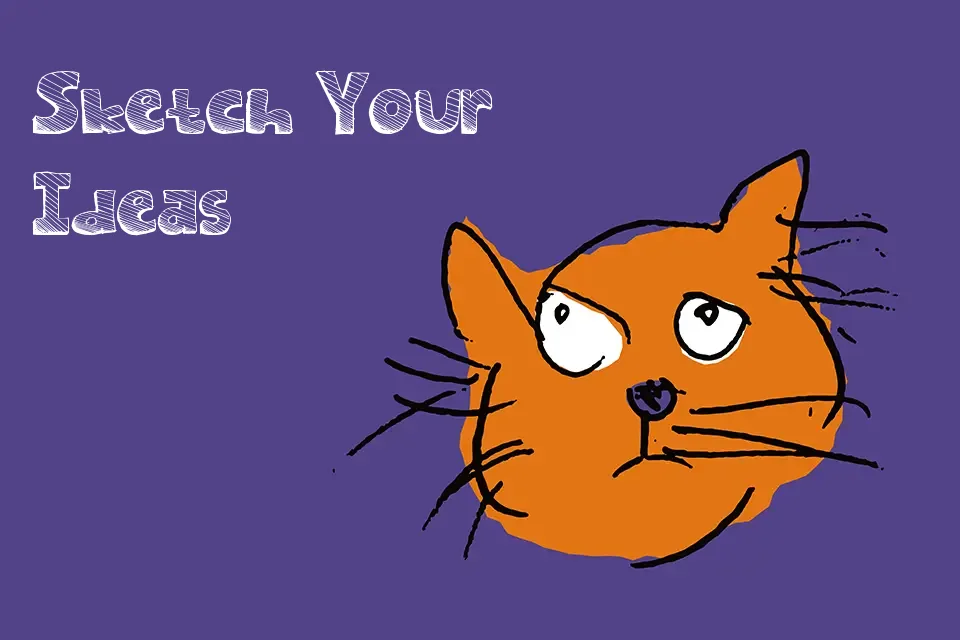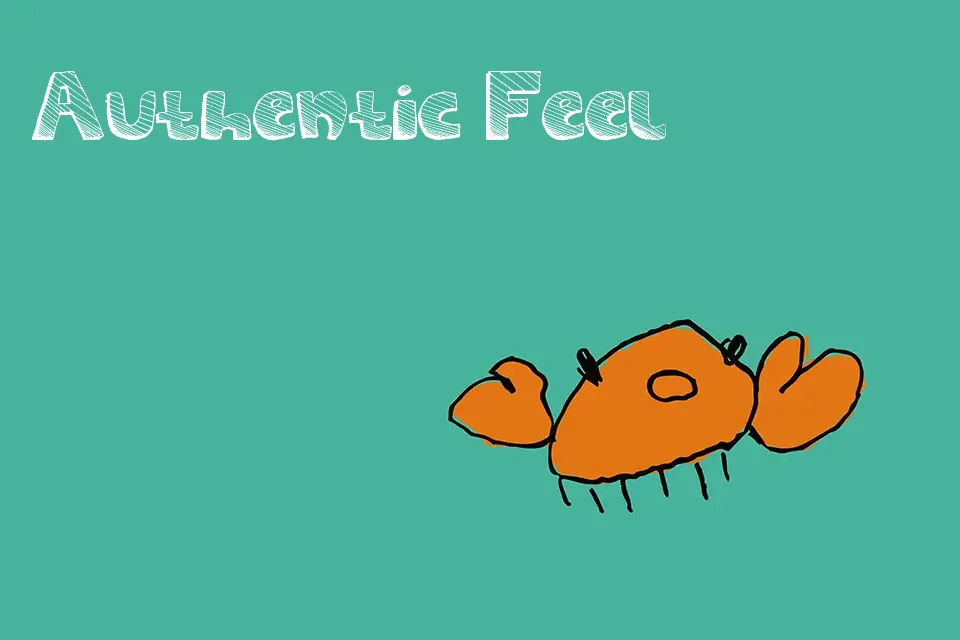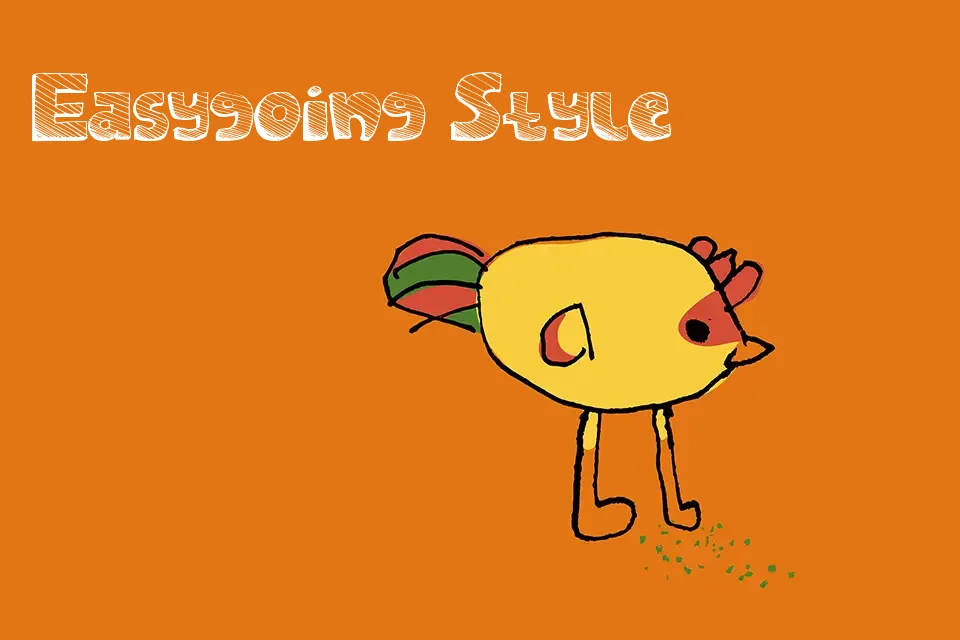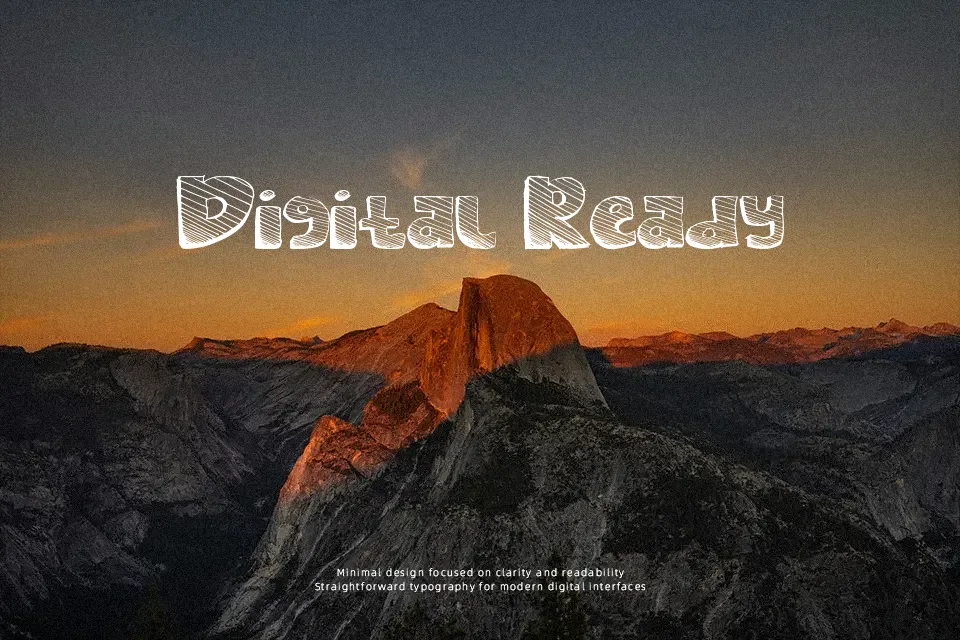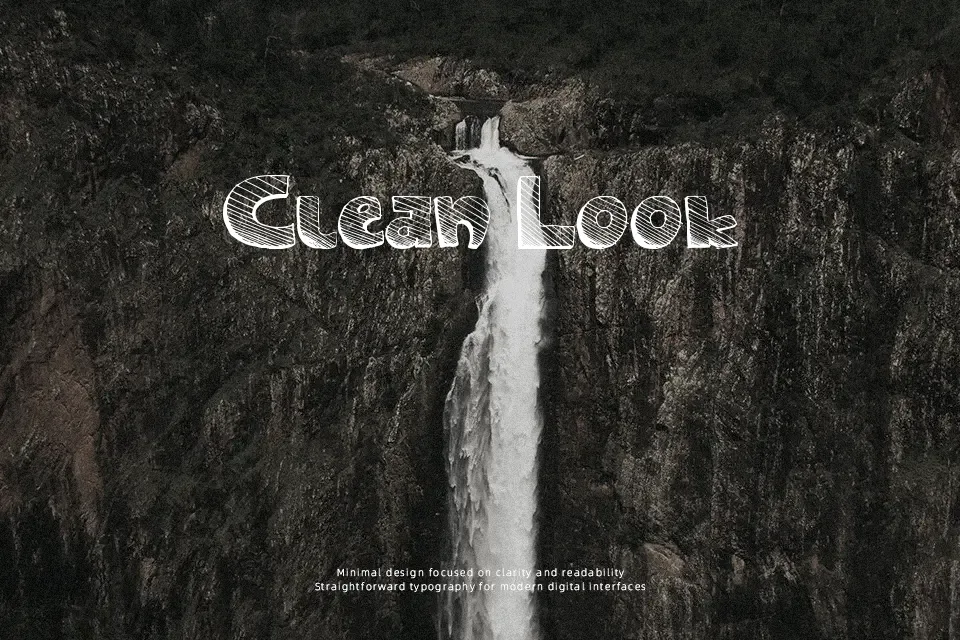
Sketches Font
Designed by Fani Rizky
Characterized by deliberate pencil-like hatchings and textured outlines, Sketches Font presents an informal cartoon structure designed specifically for prominent titling. The individual letterforms feature relaxed proportions, uneven outer edges, and moderate spacing that together produce an expressive, handcrafted rhythm. At larger scales, the open counter spaces preserve recognizable shapes, making the typeface well suited for illustrated story headings, casual video thumbnails, and youth-oriented event banners. However, the intricate stroke details quickly deteriorate at smaller point sizes, creating visual clutter. For this reason, dense paragraph settings and compact interface elements lose clarity, restricting the design primarily to short, high-impact headlines.
Best For: children book covers, illustrated story headings, comic book titles, casual merchandise graphics
Not Ideal For: continuous body text, mobile ui labels, corporate financial reports, technical documentation
Perfect for headline, kids, and logo, with a creative and cartoon style.